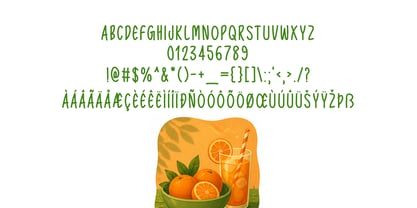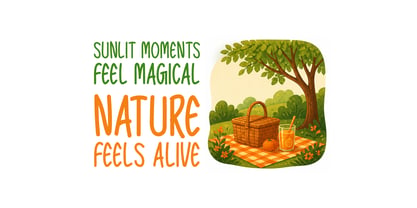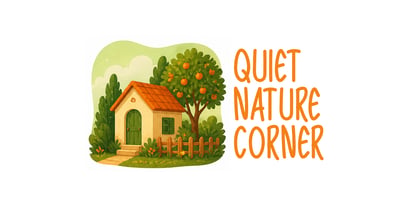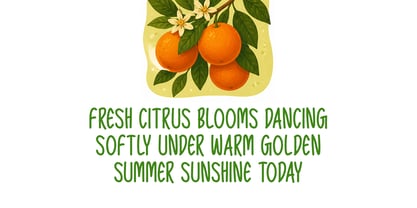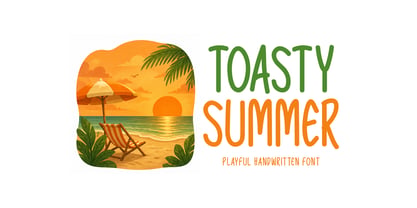
Toasty Summer
by Seemly Fonts
The Toasty Summer Font Family was designed by Md. Sohail Bhuiyan and published by Seemly Fonts. Toasty Summer contains 1 styles. More about this family
Toasty Summer is a lively and expressive handwritten font crafted to bring warmth, charm, and personality into your creative work. Its smooth, natural strokes and playful character make it perfect for a wide range of uses, from stationery, branding, and logo design to t-shirts and printed materials. Whether you’re designing website headers, posters, photo frames, flyers, music covers, or image sliders, this font blends effortlessly into both digital and print layouts while maintaining a fresh, summery vibe.
Designers: Md. Sohail Bhuiyan
Foundry: Seemly Fonts